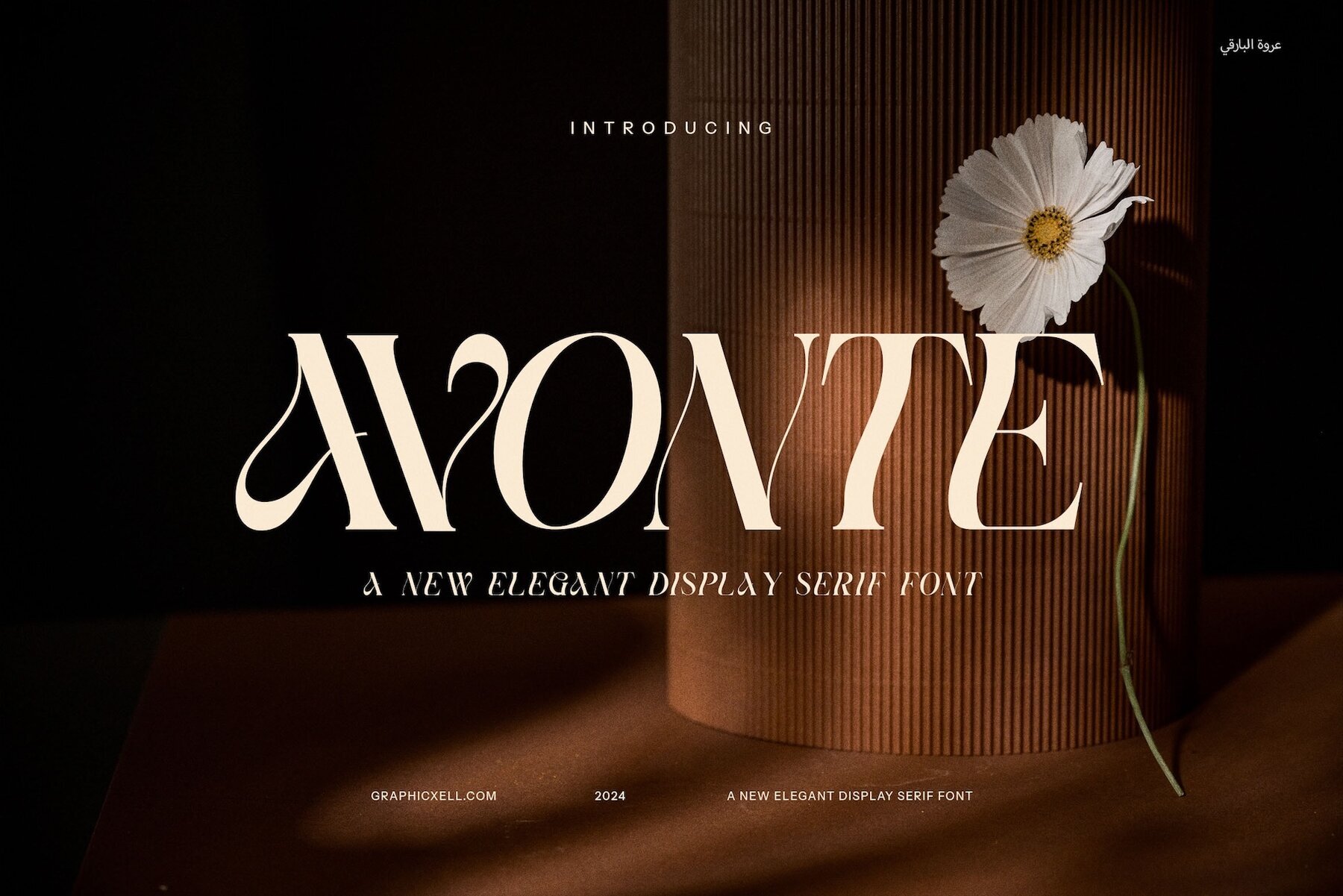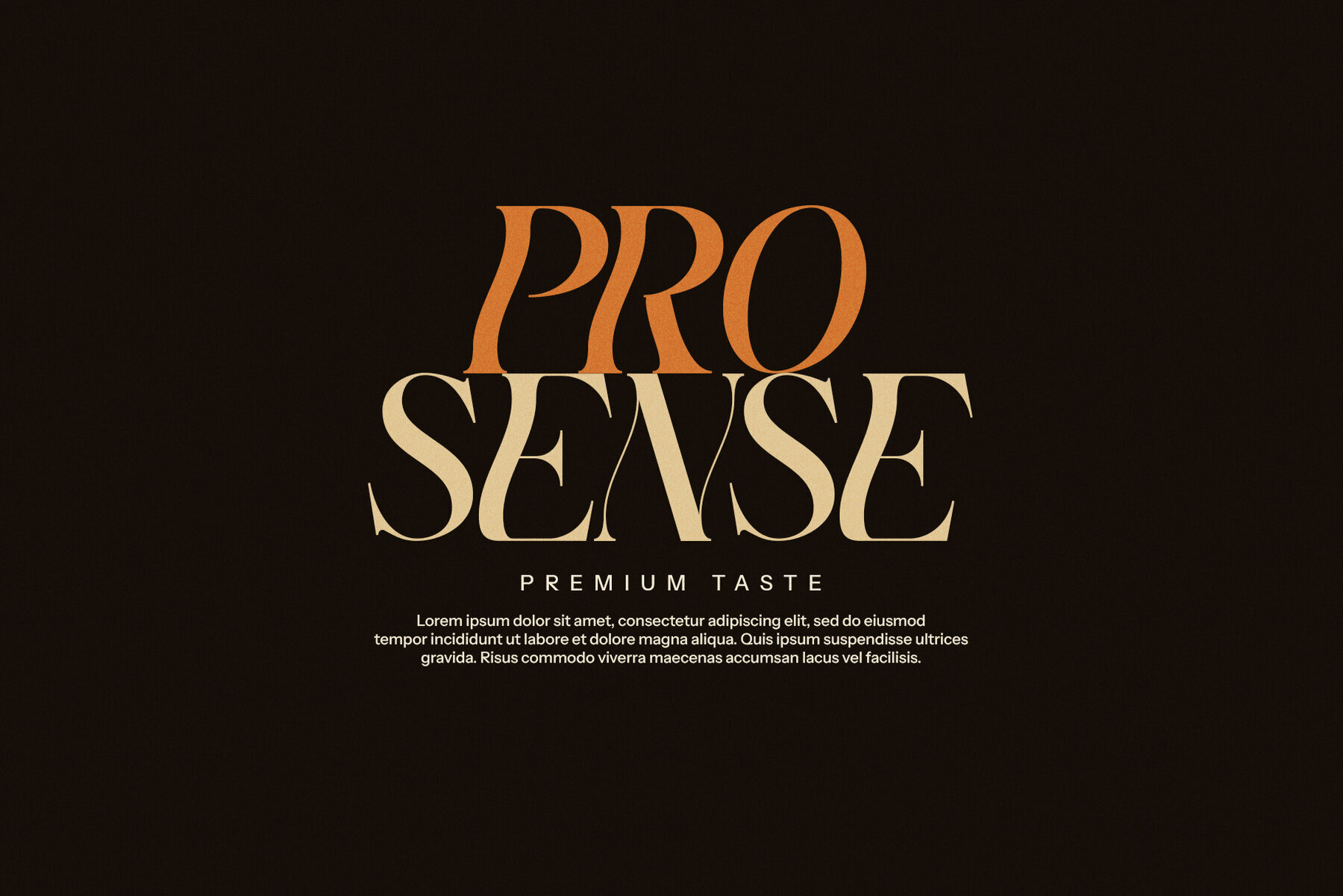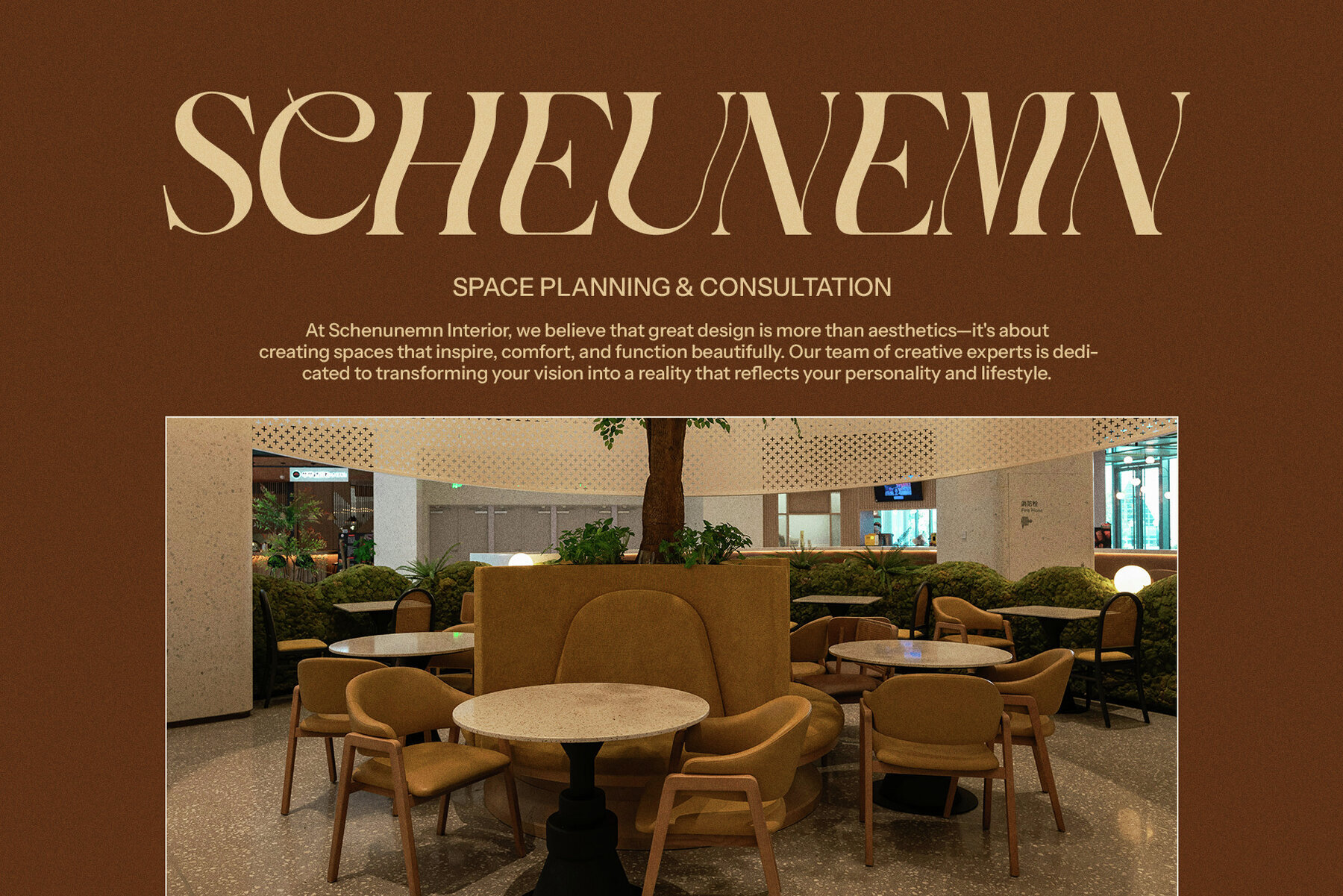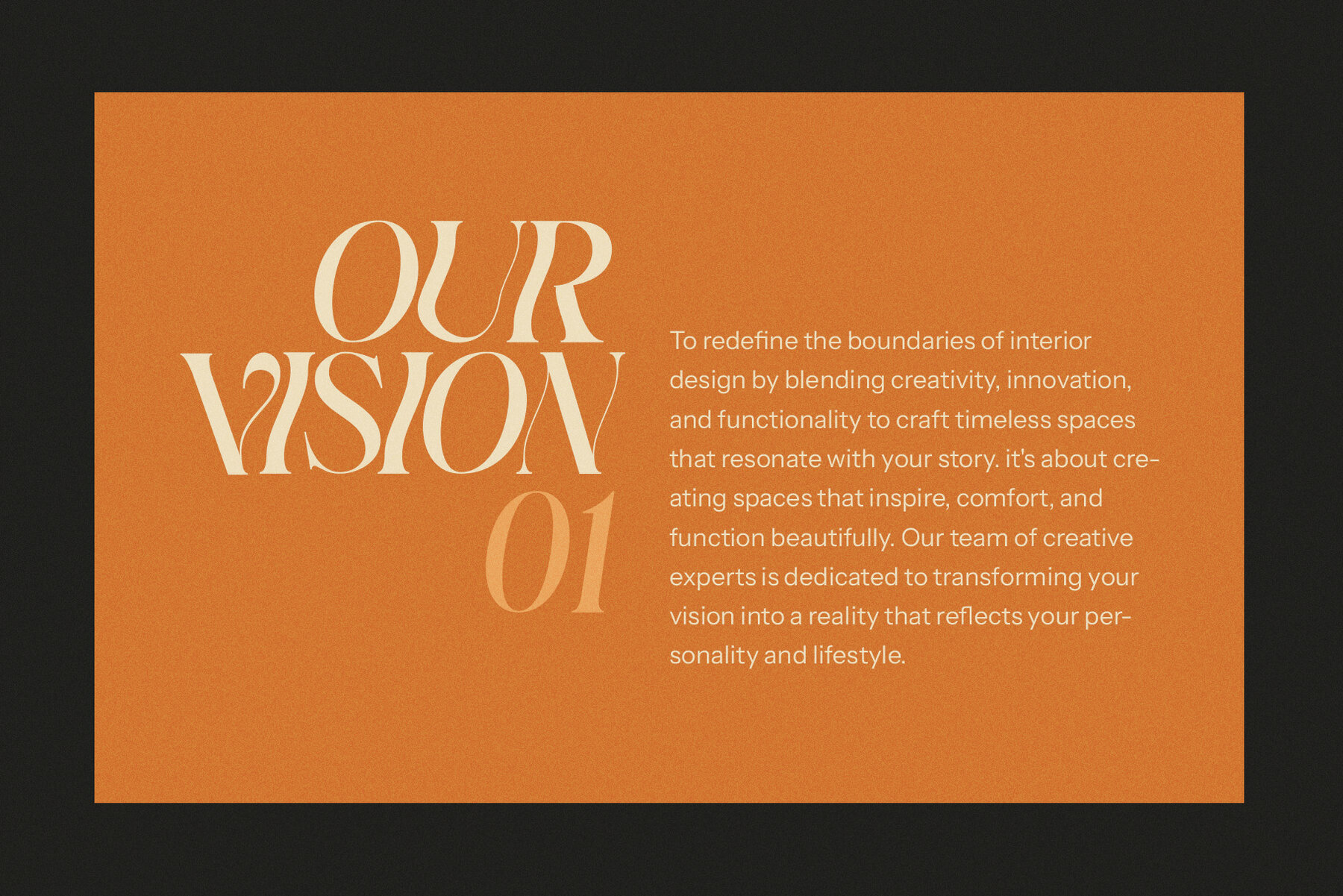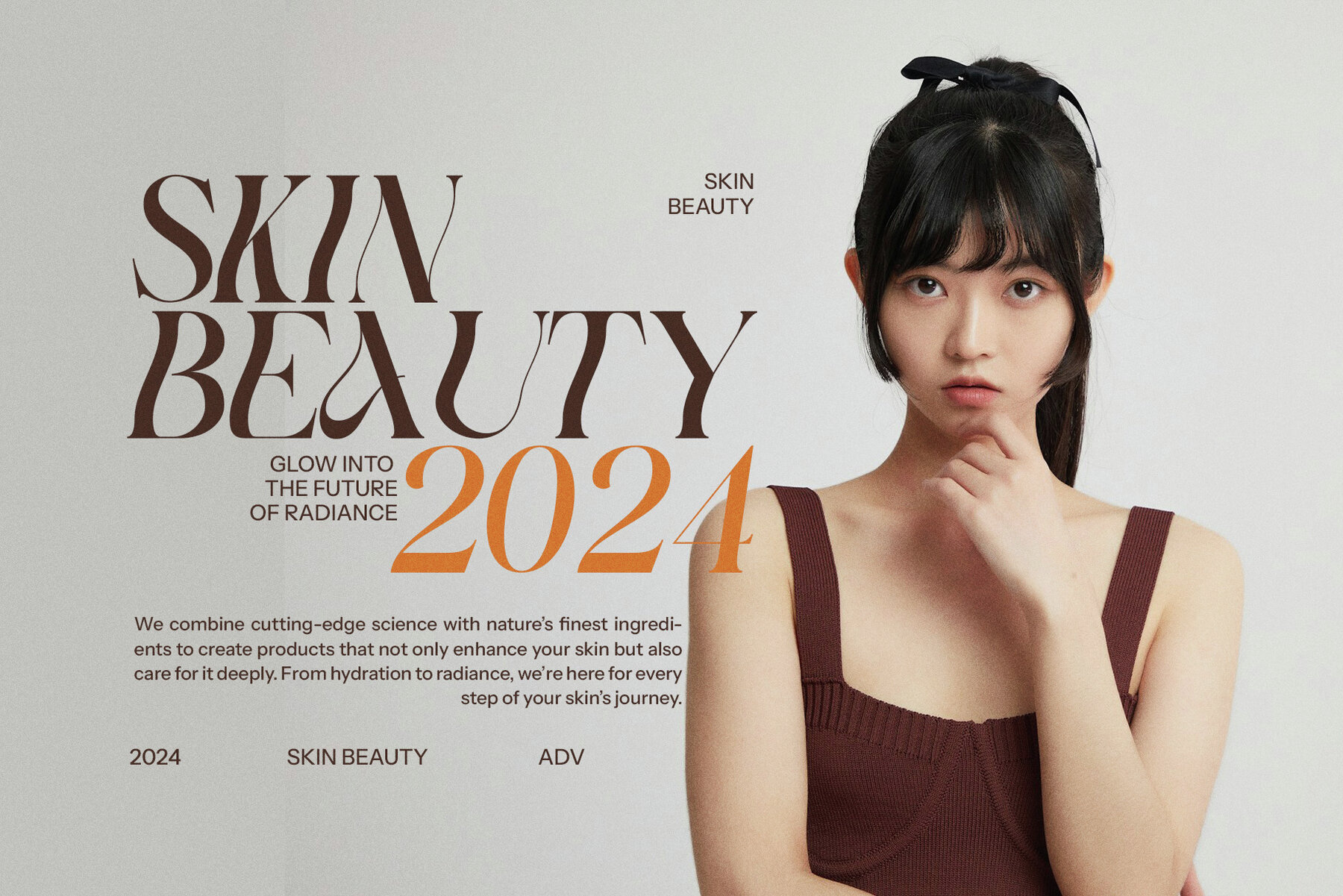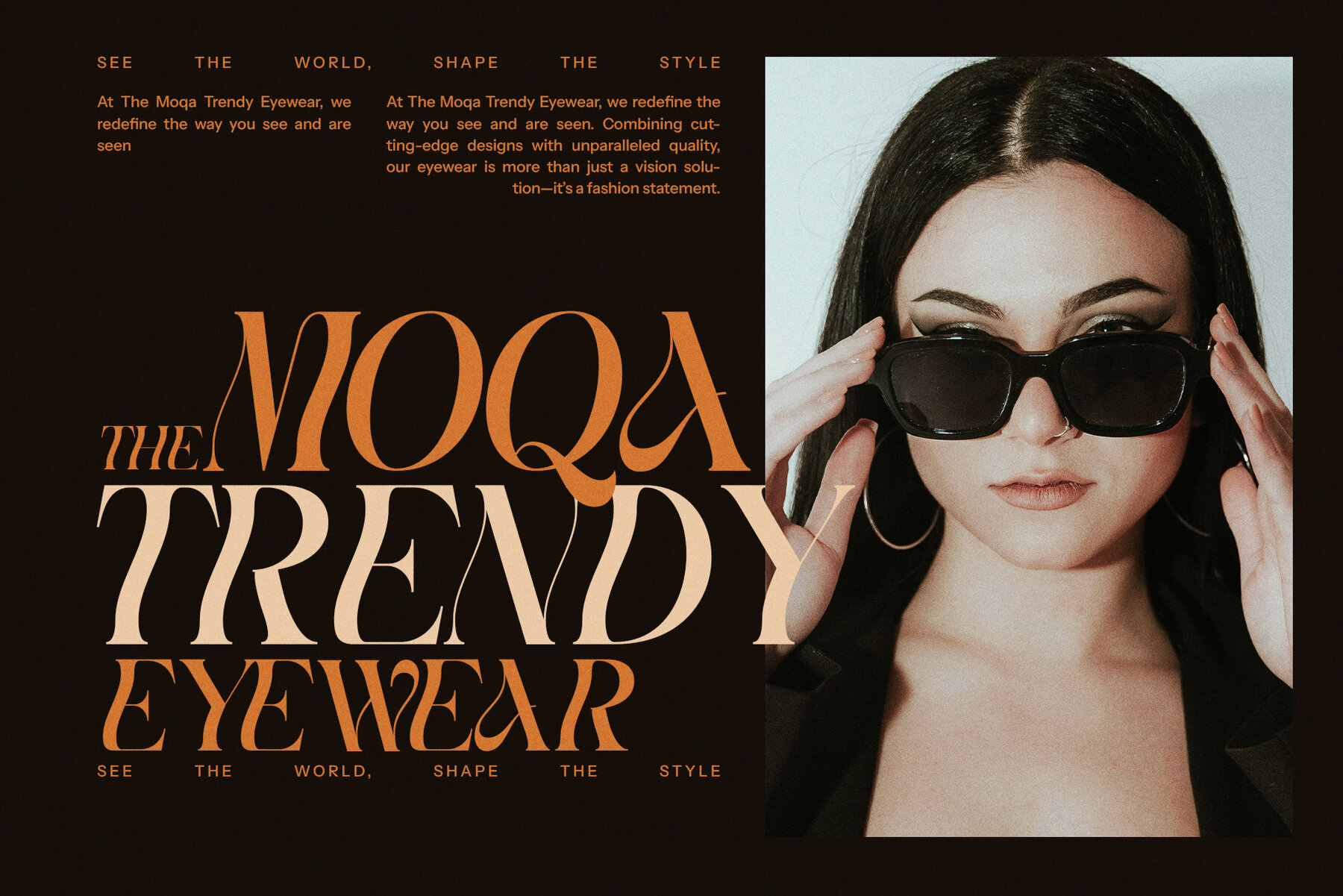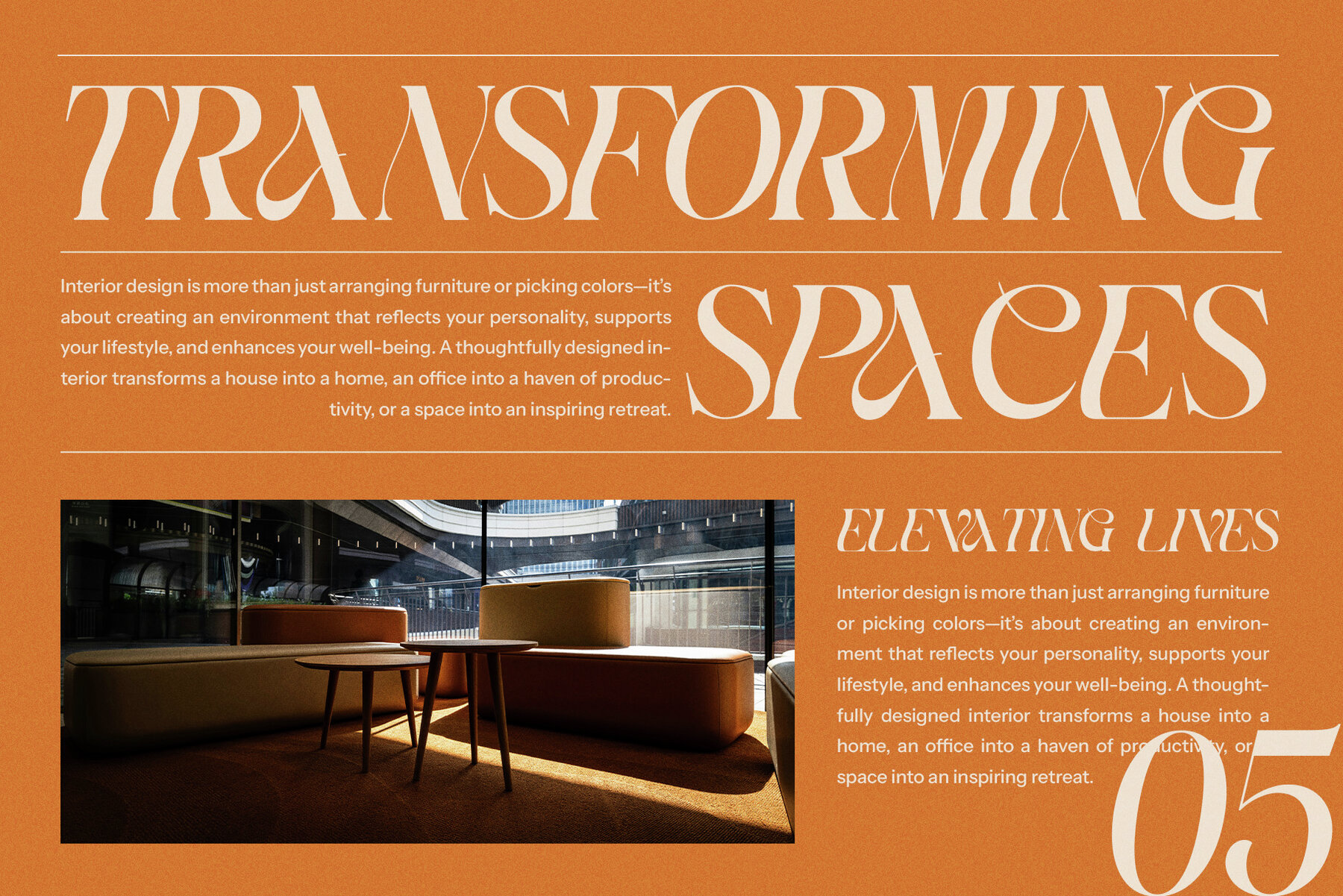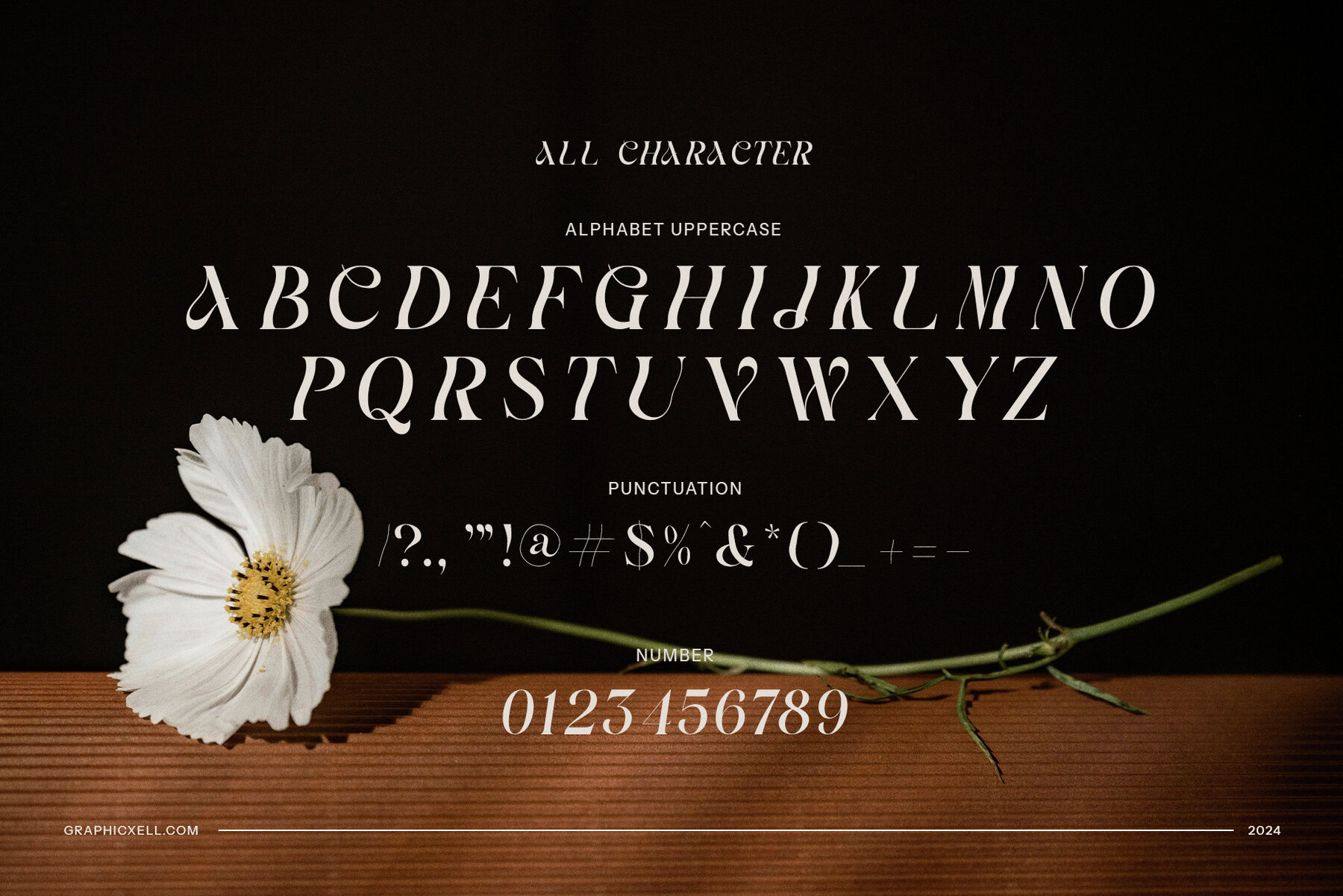
Avonte Font
Avonte
Avonte Elegant Serif Font is a refined typeface designed to infuse luxury and sophistication into any design project. This modern serif font beautifully merges classic vintage allure with contemporary aesthetics, making it ideal for diverse design applications. Whether crafting a high-end logo, building brand identity, or creating marketing materials, Avonte's elegance and distinction elevate the visual appeal.
The font's carefully crafted letterforms showcase a unique personality, perfect for both digital and print formats. Its clean lines and graceful curves ensure excellent readability, while its bold character provides a strong presence. Ideal for luxury branding, fashion boutiques, high-end restaurants, and premium products, Avonte enriches any visual identity with timeless elegance.
Versatile and well-suited for a variety of design projects, including websites, magazines, brochures, product packaging, and advertisements, Avonte is perfect for sophisticated layouts, editorial designs, and promotional materials. Whether working on corporate identity, creative projects, or upscale events, Avonte Elegant Serif Font delivers refined class, capturing attention and leaving a lasting impression with its perfect blend of modern and vintage styles.